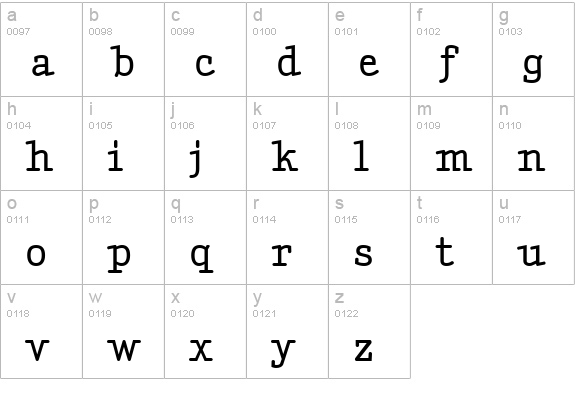
AmintaMedium Font Details
AmintaMedium font is a versatile and elegant typeface that exudes sophistication and style. With its balanced proportions and clean lines, this font is perfect for a wide range of design projects, from branding to editorial design. The medium weight of AmintaMedium strikes the perfect balance between legibility and impact, making it suitable for both body text and headlines. What sets AmintaMedium font apart is not only its timeless design, but also the fact that it is available for free download at FontsMarket.com. This means that designers and creatives can easily access this high-quality font without any cost, making it a valuable addition to any font library. Whether you're working on a print project, a website design, or any other creative endeavor, AmintaMedium font will elevate your work with its classic aesthetic and modern appeal. Download it for free today and see how it can enhance your designs!